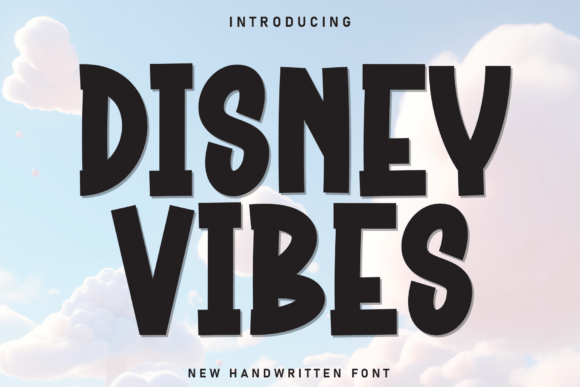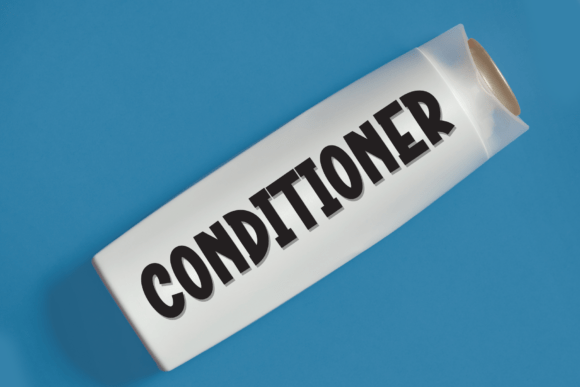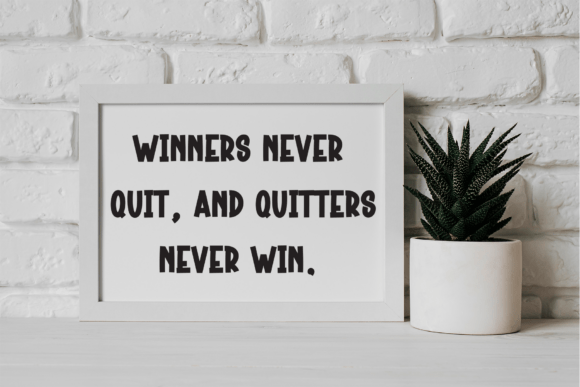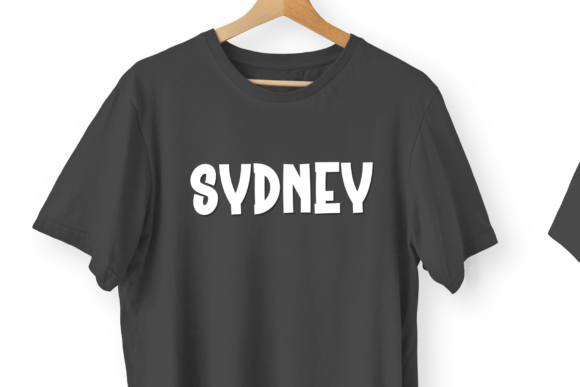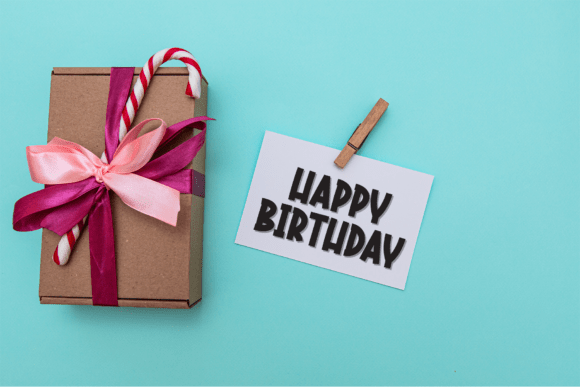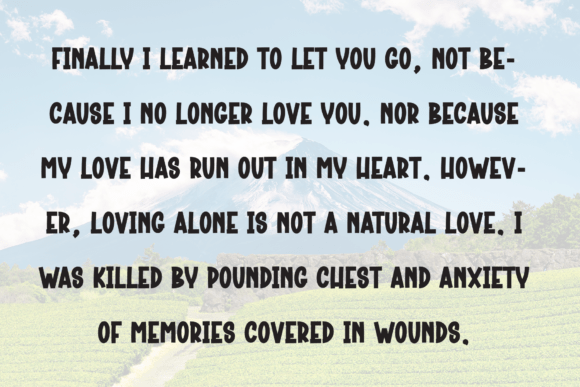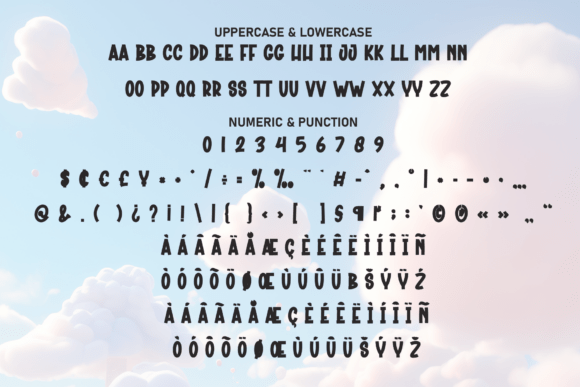
Unleashing the Magic of Childhood: Introducing the Disney Vibes Font
Have you ever been browsing through a vintage Disney store, surrounded by the nostalgic charm of Mickey Mouse ears and vintage posters, and suddenly felt a rush of creativity? That’s exactly the kind of spark that inspired the creation of the Disney Vibes Font – a bold and cheerful display font that captures the magic of childhood and imagination.
With its chunky, fun-loving letters and animated style, the Disney Vibes Font is perfect for designers looking to add a splash of playful energy to their projects. Whether it’s a party invitation, a children’s book, or a YouTube thumbnail, this font is sure to bring a smile to the faces of your audience. For designers, the Disney Vibes Font is a valuable tool in their arsenal, allowing them to tap into the nostalgia and wonder of childhood and create truly unforgettable designs.
Key Features of Disney Vibes Font
- Unique Characteristics: The font’s distinctive rounded shapes, whimsical flourishes, and playful letterforms evoke a sense of nostalgia and magic, reminiscent of Disney’s classic animation style.
Disney Vibes Font Review
Overall, I was excited to dive into the Disney Vibes Font. ✨ The font’s main strength lies in its ability to evoke a sense of nostalgia and playfulness, making it perfect for projects that require a touch of whimsy.
- ✨ The font’s unique and quirky character set is a standout feature. It’s perfect for adding a touch of Disney magic to your designs.
- ✨ The font is highly customizable, allowing you to adjust the size, color, and spacing to fit your needs.
- ✨ The font is available in a range of styles, including bold and italic, making it versatile for different design applications.
- ⚠️ The font may be too kitschy for more formal or professional designs. It’s best suited for projects that require a lighthearted and playful tone.
- ⚠️ The font’s readability can be affected by its unique character set, making it more challenging to read at smaller sizes.
- ⚠️ The font may not be suitable for body text, as it can be overwhelming when used extensively.
Overall, I think the Disney Vibes Font is a great choice for designers who want to add a touch of fun and whimsy to their projects. While it may have some limitations, its unique character set and high customizability make it a valuable addition to any design library.
Tips: Use the Disney Vibes font to create whimsical and playful designs, such as invitations, posters, and social media graphics.
Tips: Use the Disney Vibes font to create intricate and detailed designs, such as custom logos, icons, and graphics.
Tips: Use the Disney Vibes font to create eye-catching presentations and documents, such as business proposals, reports, and resumes.
The Disney Vibes font is ideal for creating whimsical and playful designs, such as:
- Invitations and party decorations
- Social media graphics and ads
- Children’s book illustrations and covers